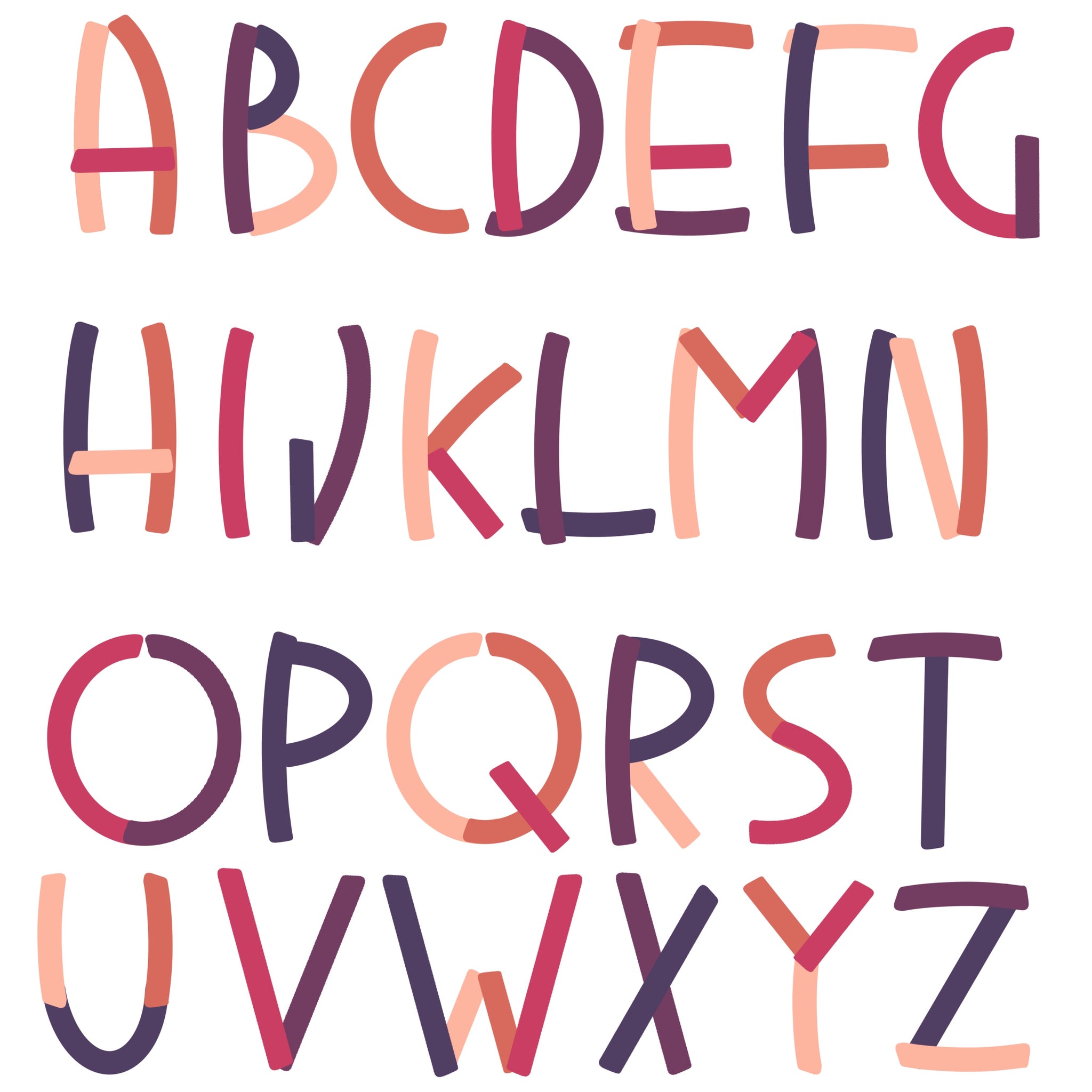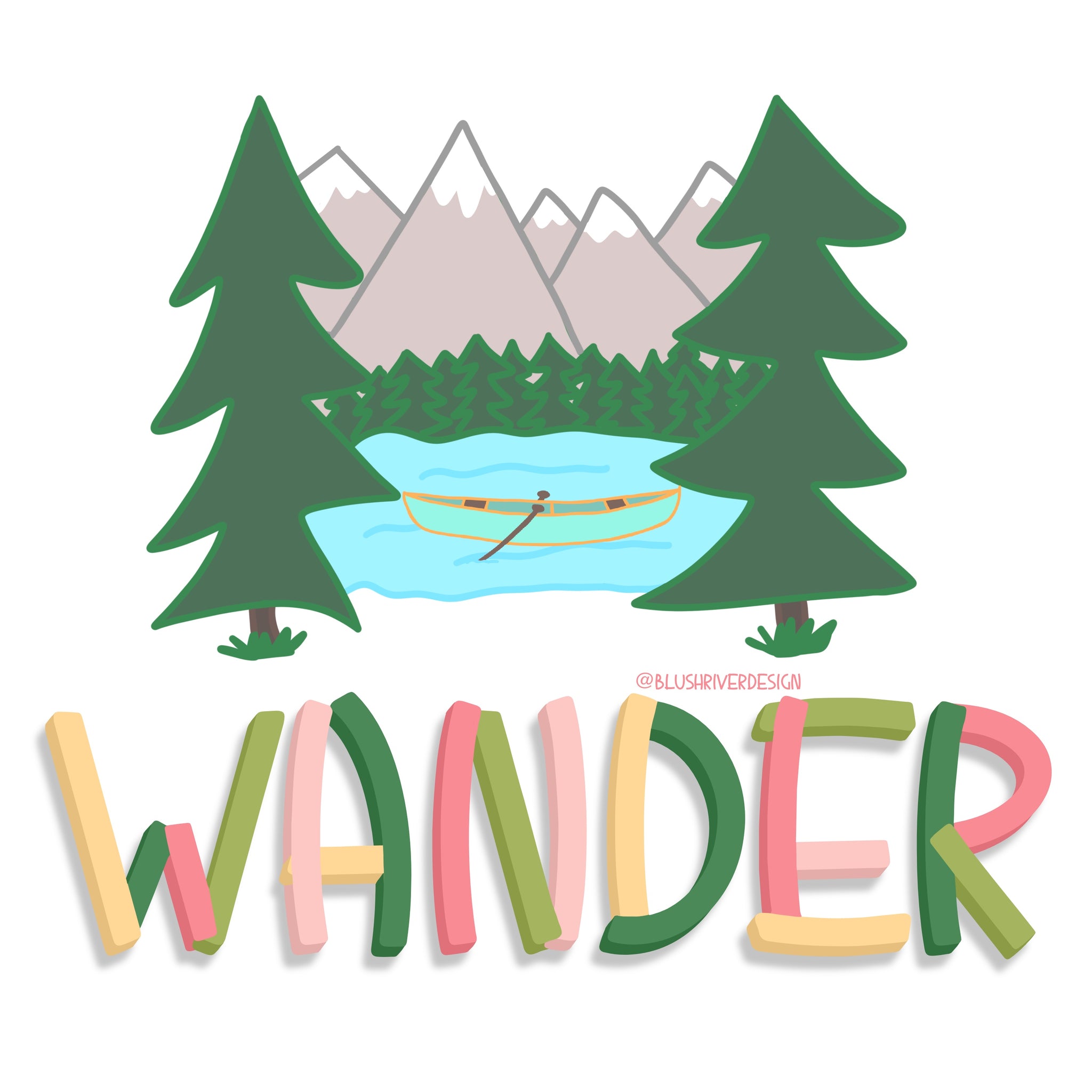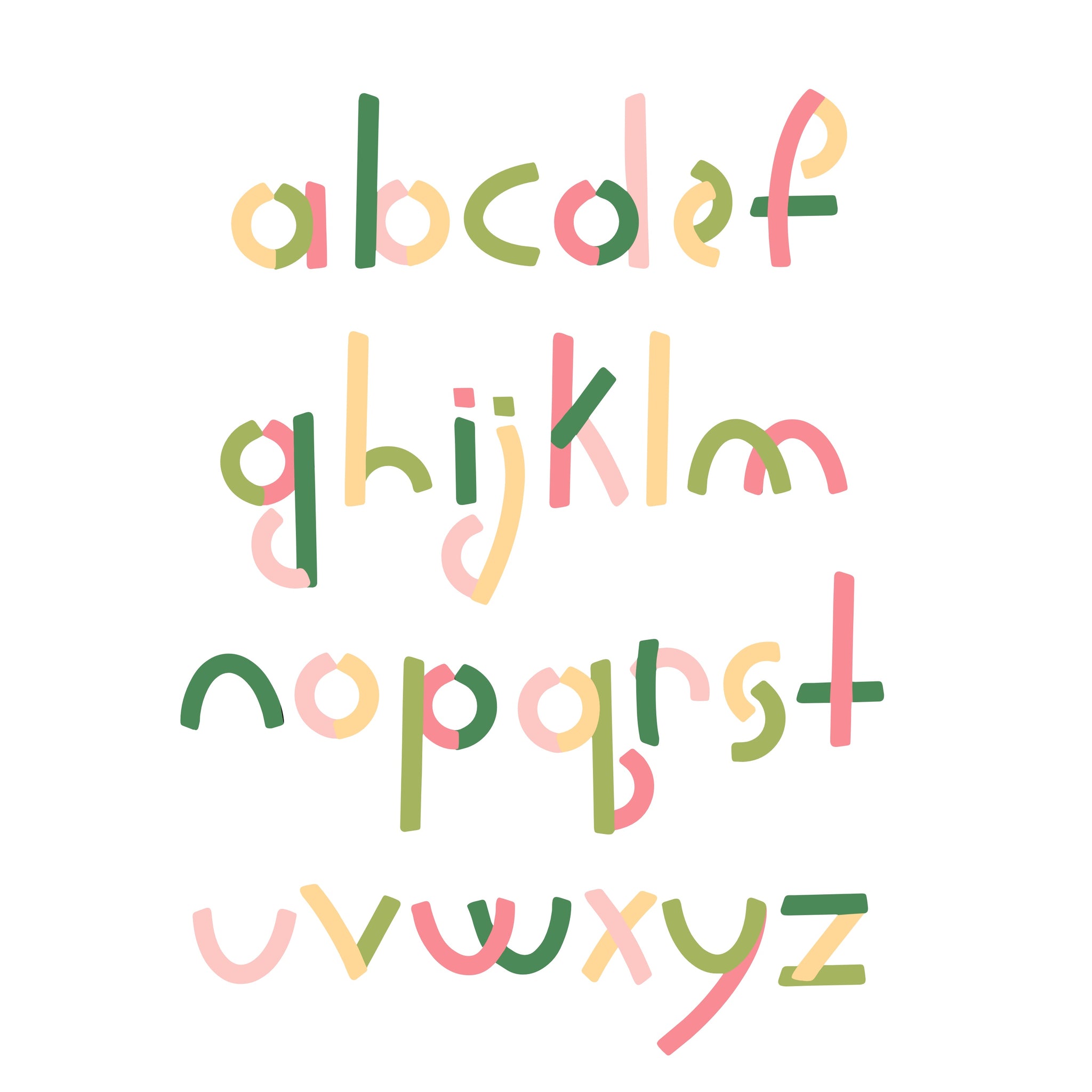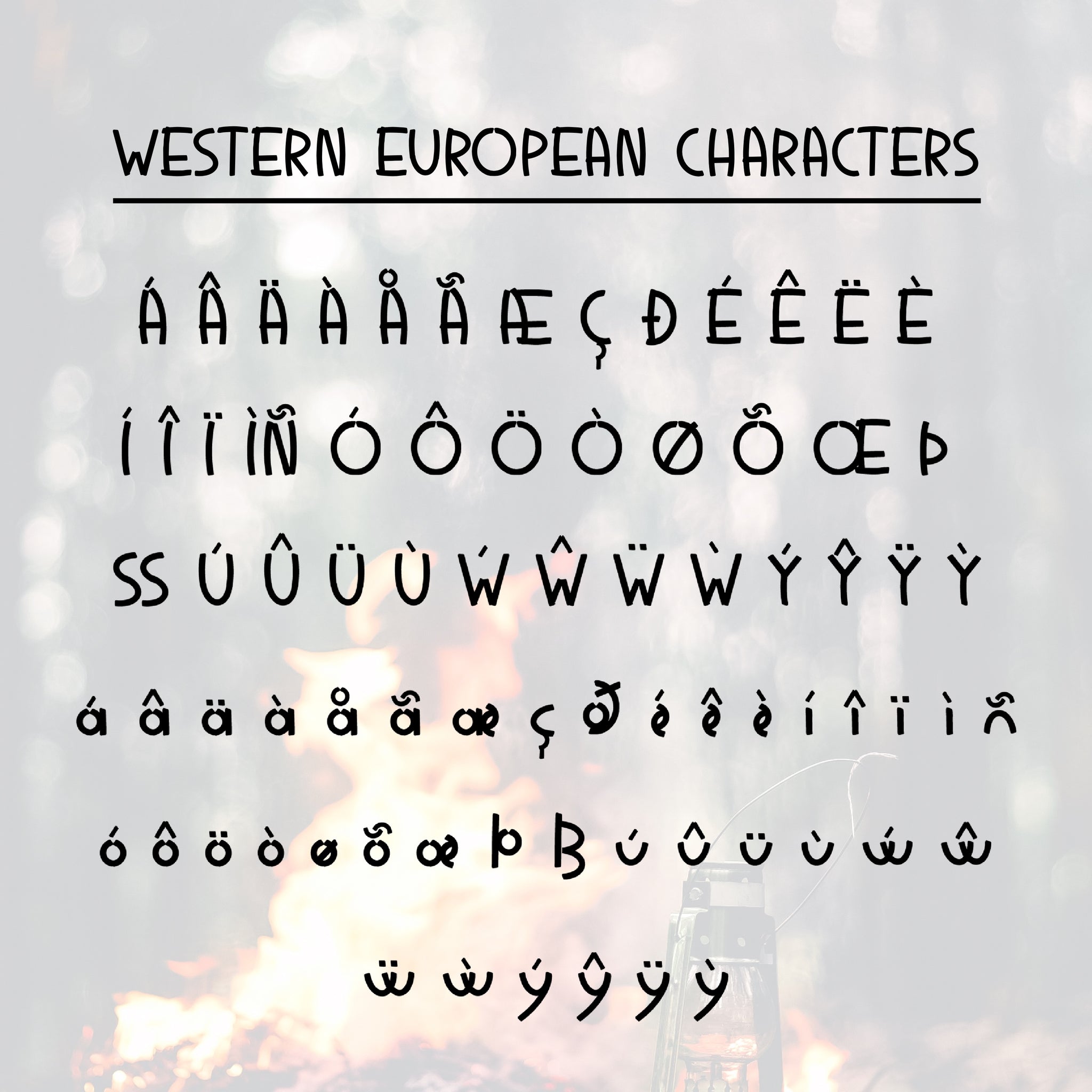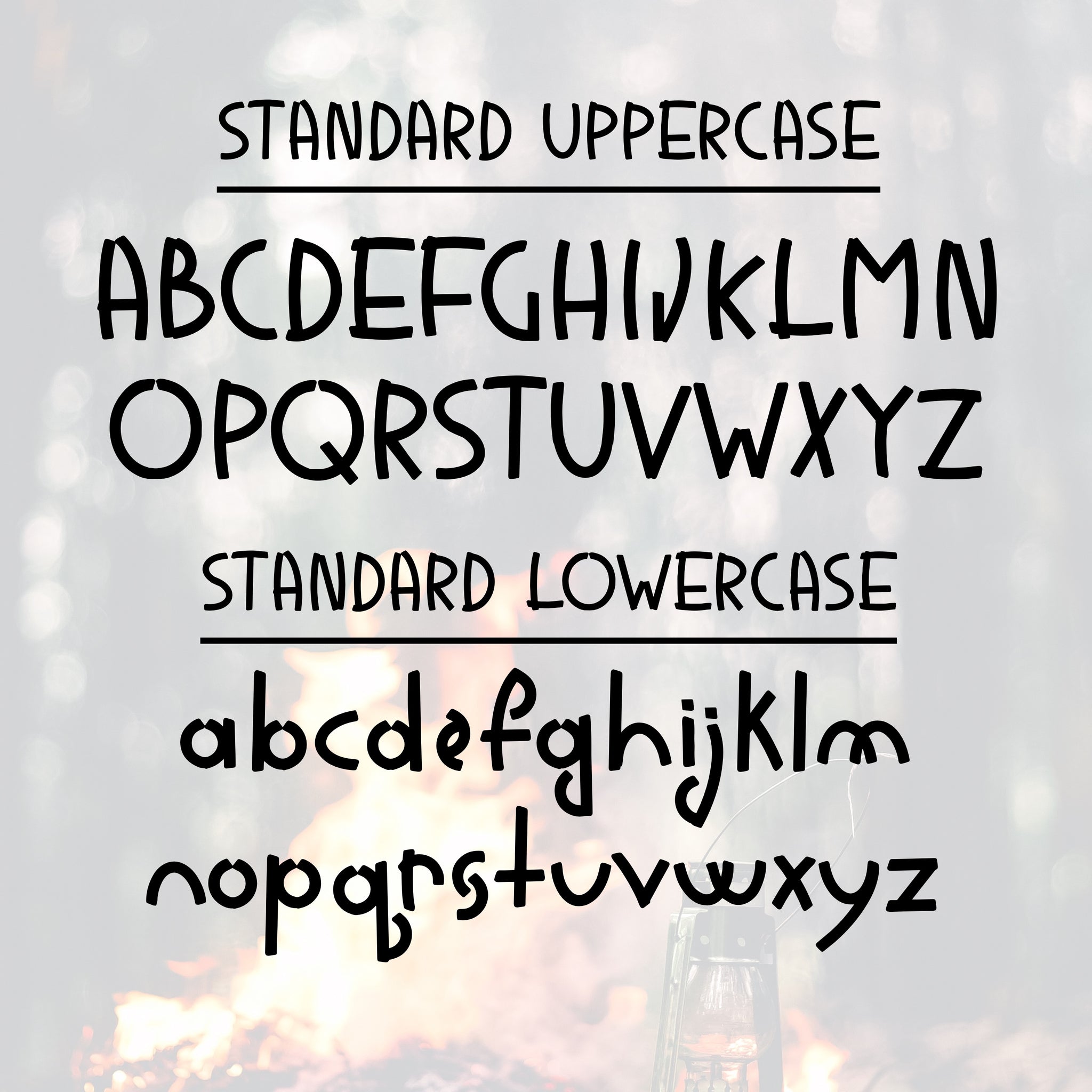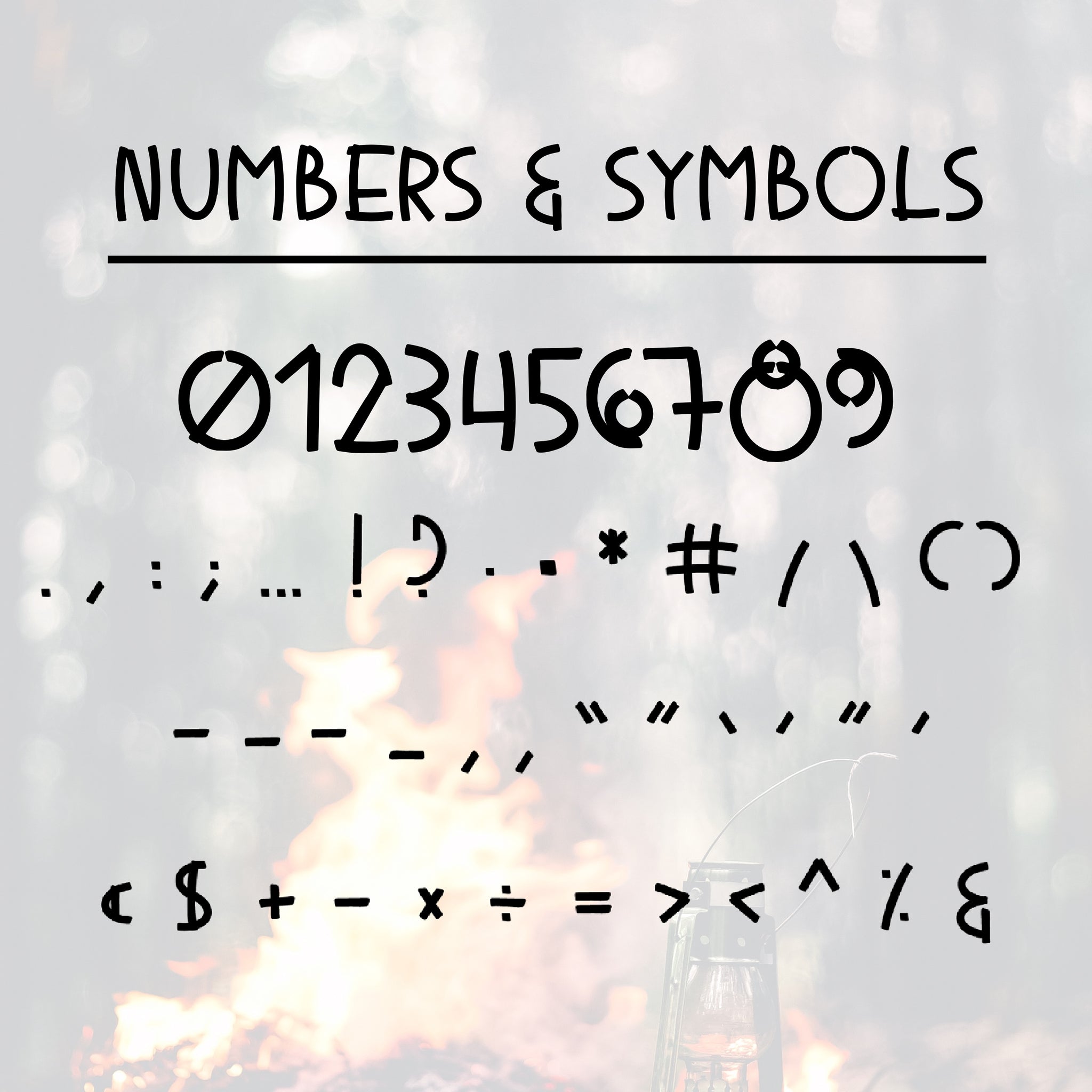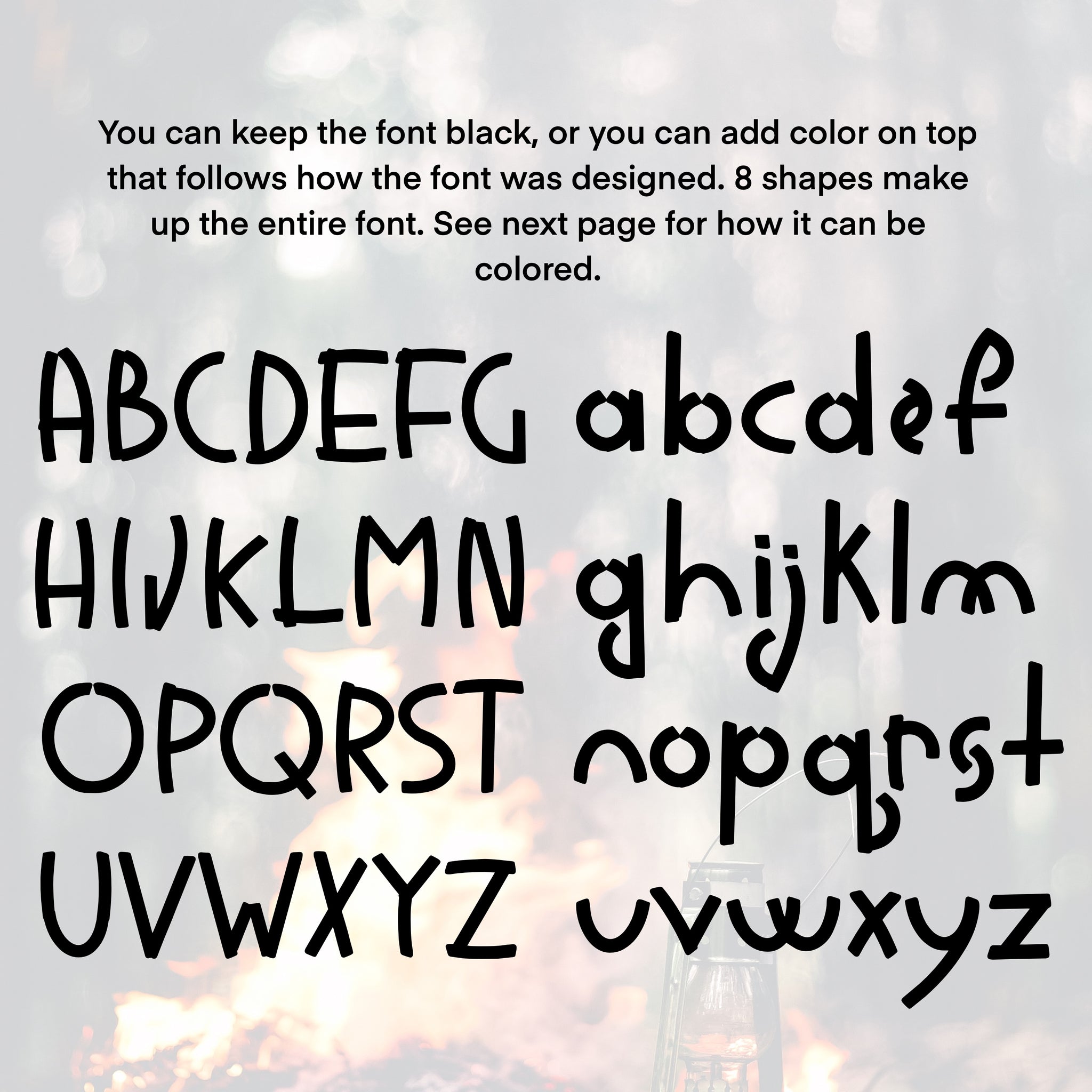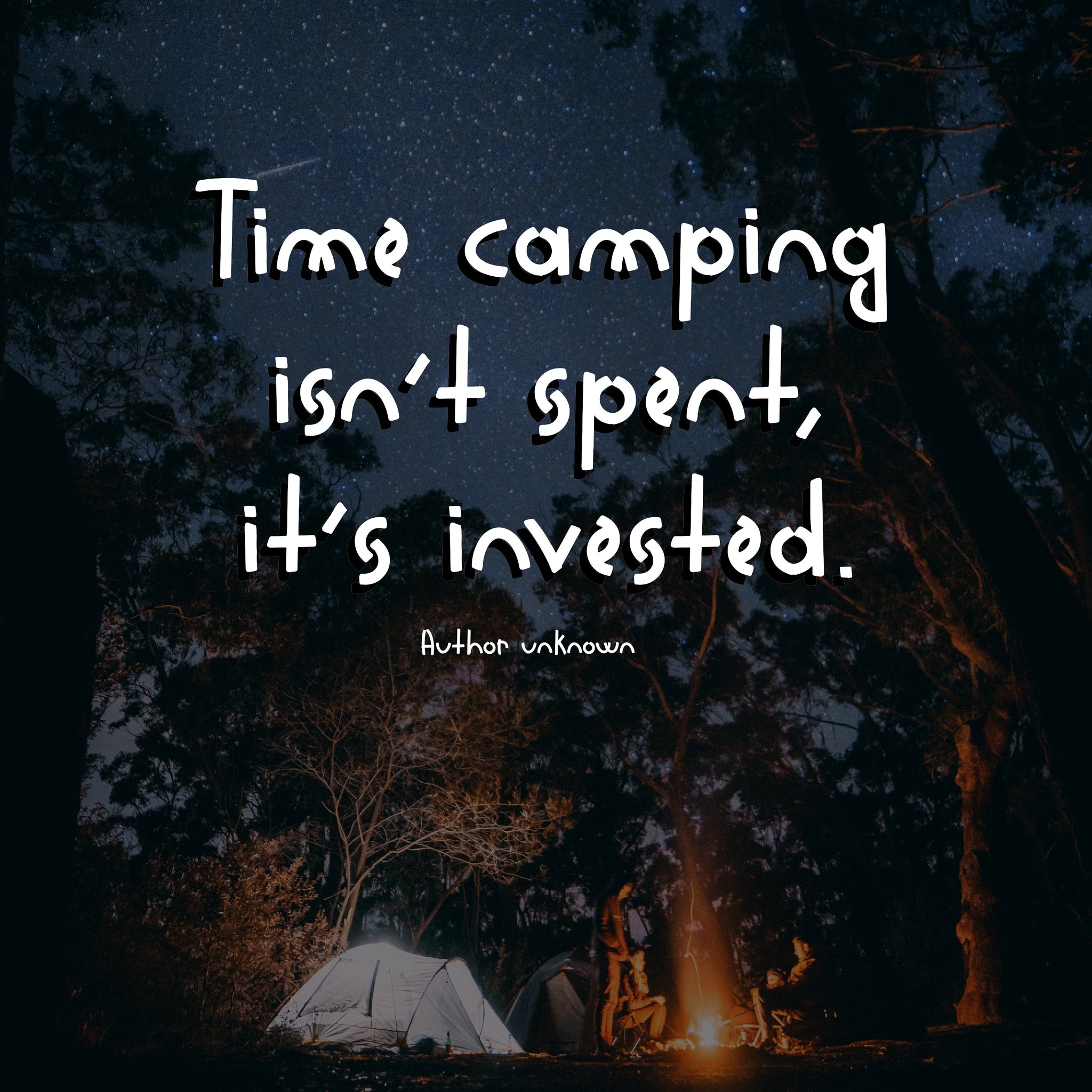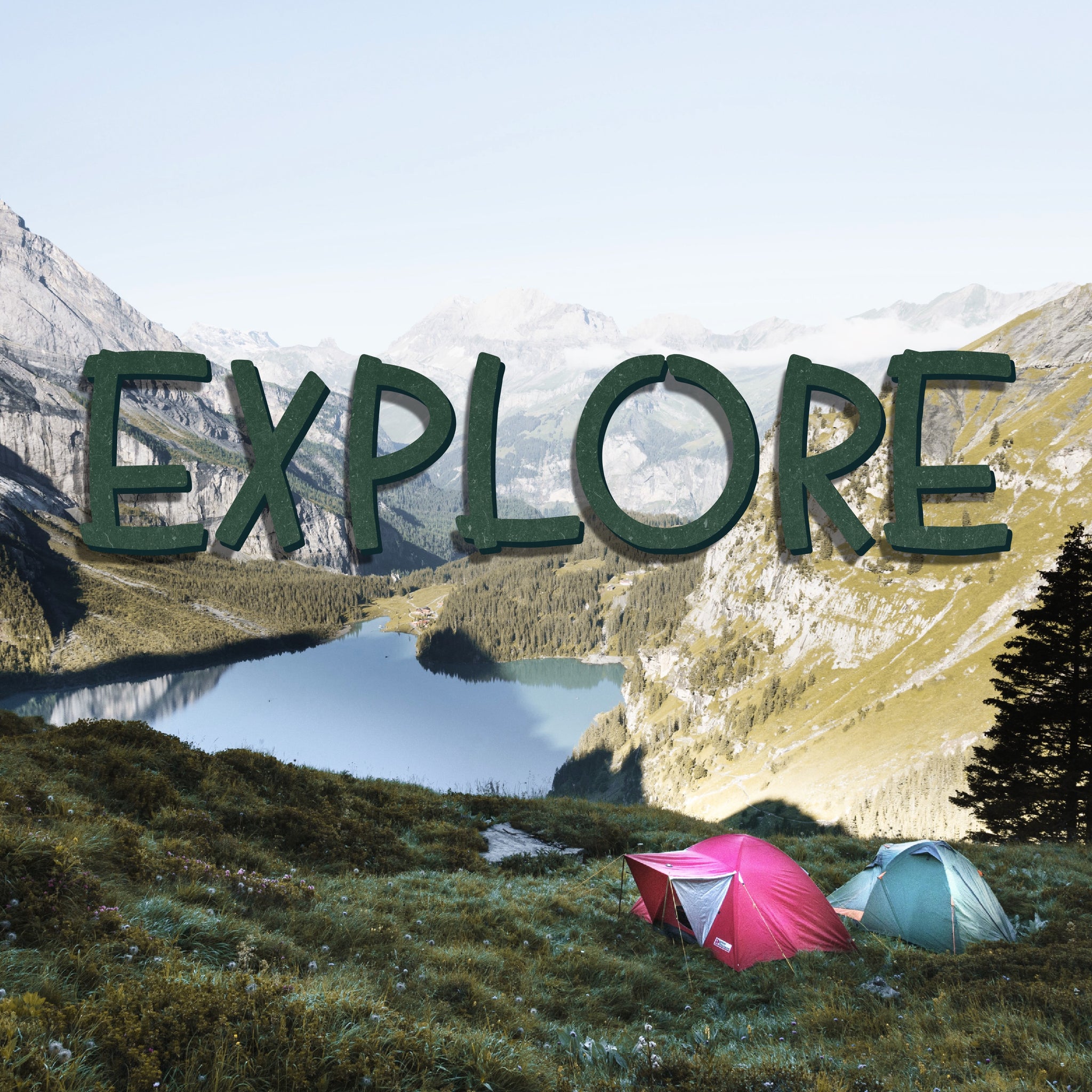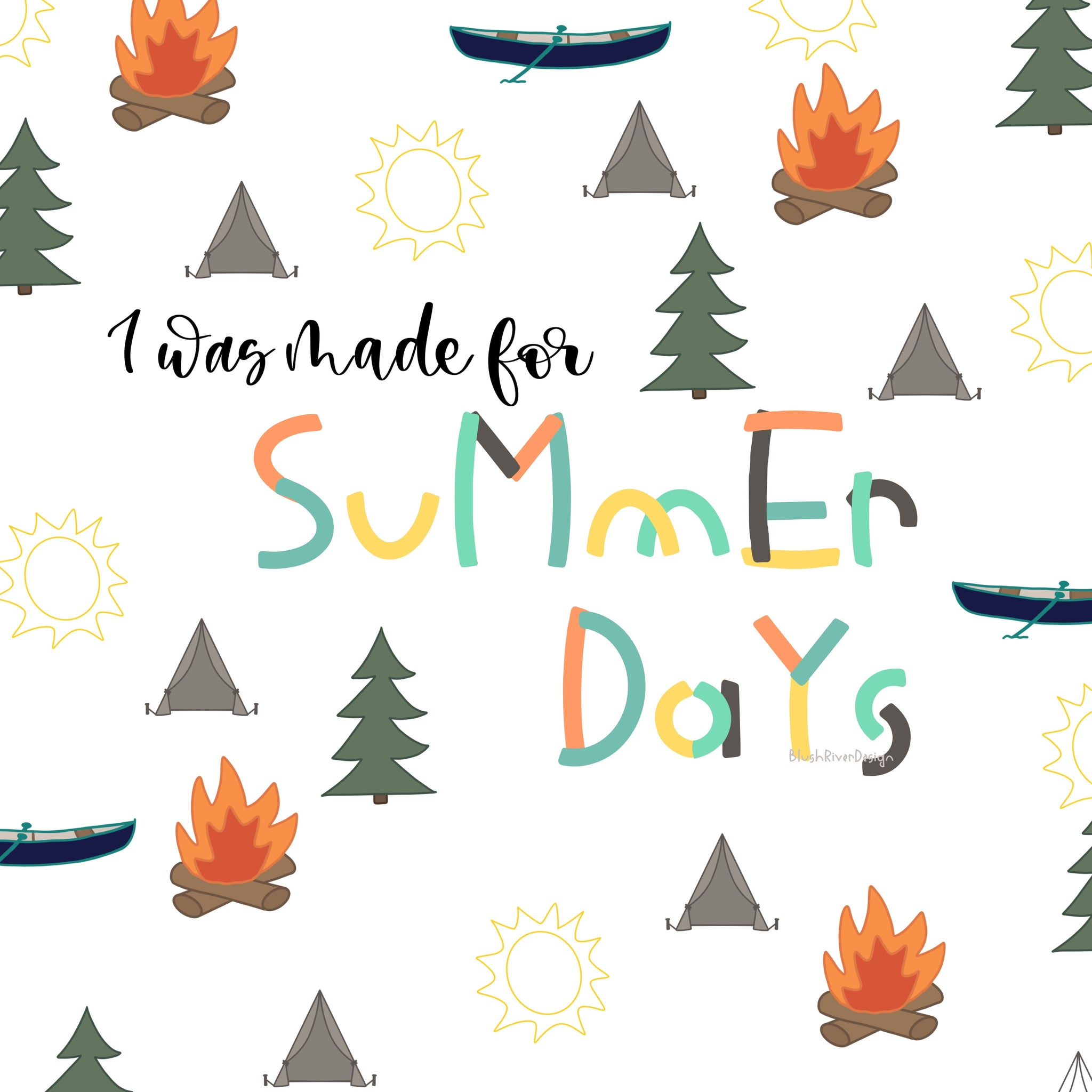
đź”…The Summer Camp Paint font will be great for when you need a fun and quirky new font! It has endless possibilities to make your designs unique. This font was made from my Summer Camp Paint Procreate brush set. The entire font is designed with only 8 shapes.Â
🎉The Summer Camp Paint font contains multilingual support with accented characters for international Western European users.